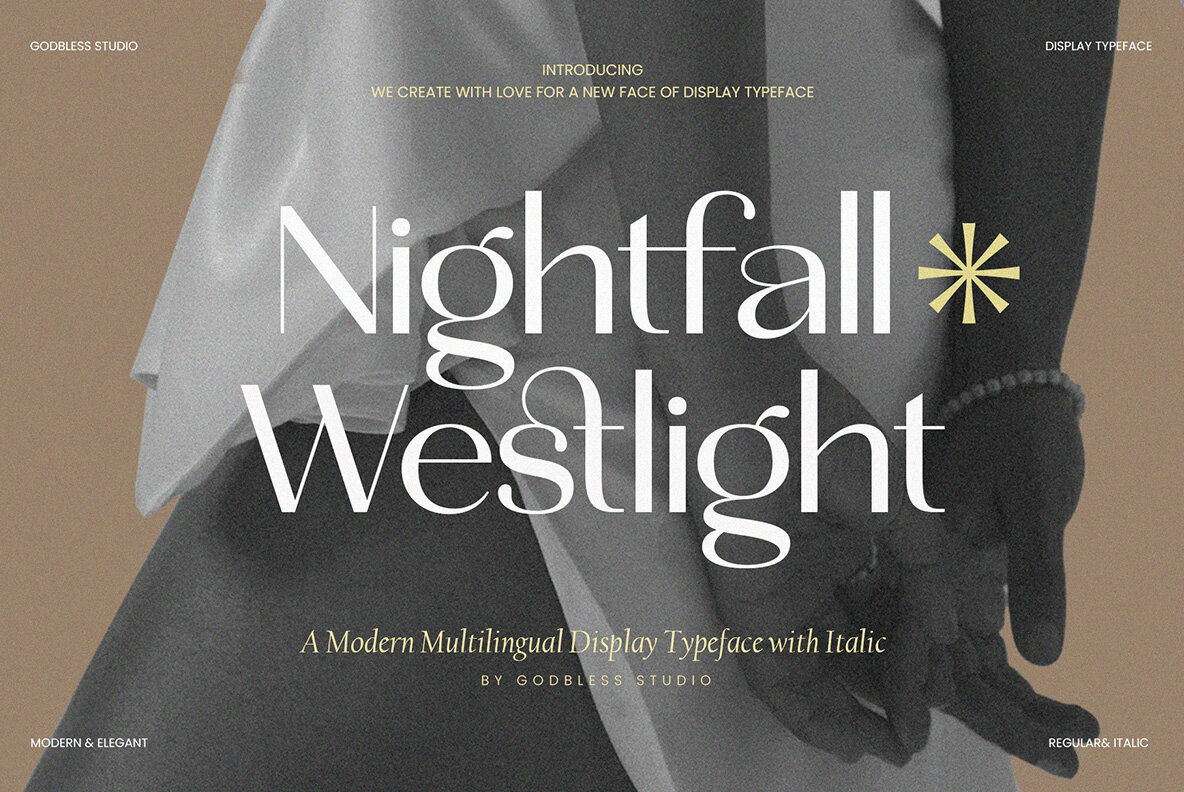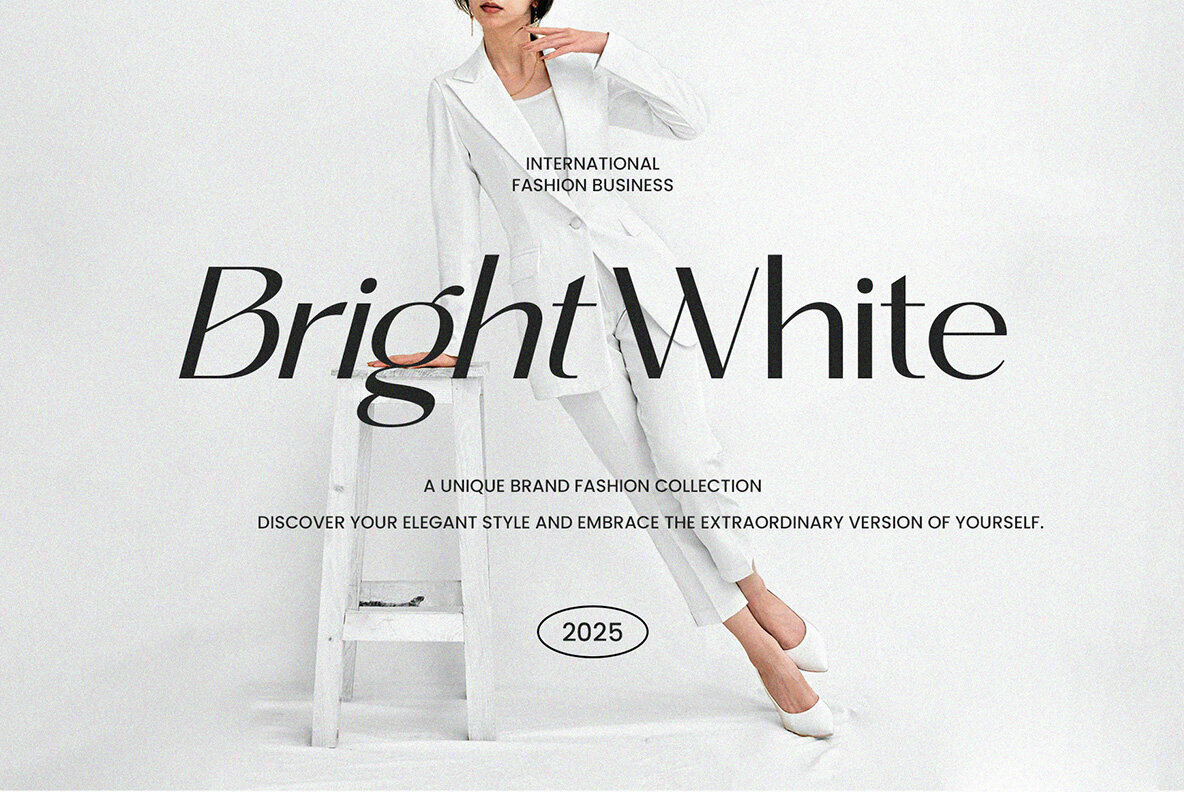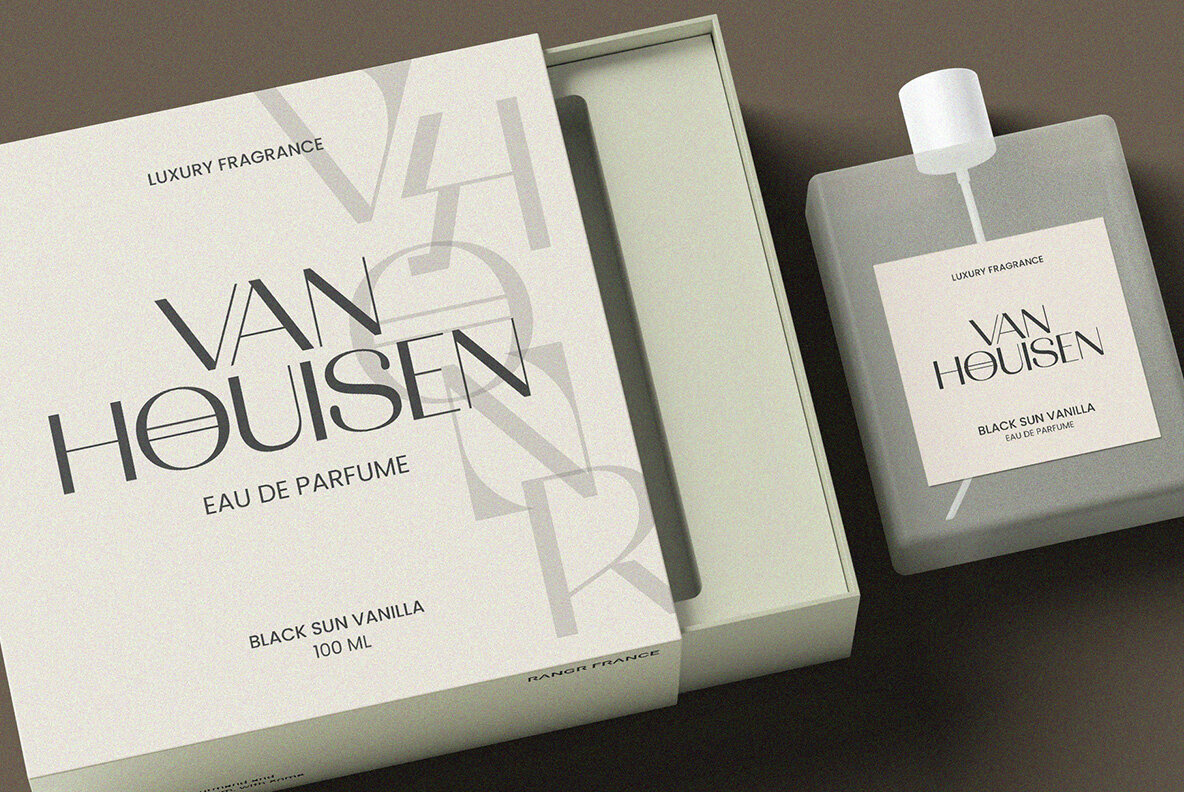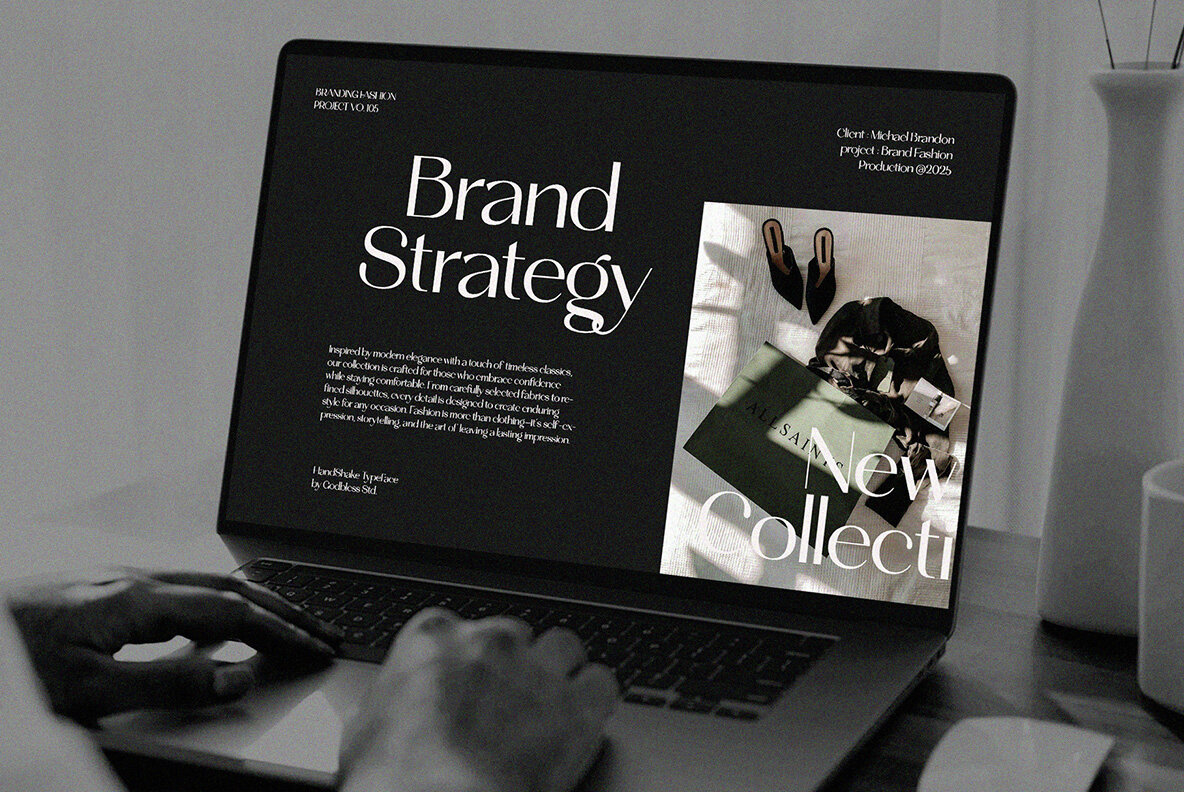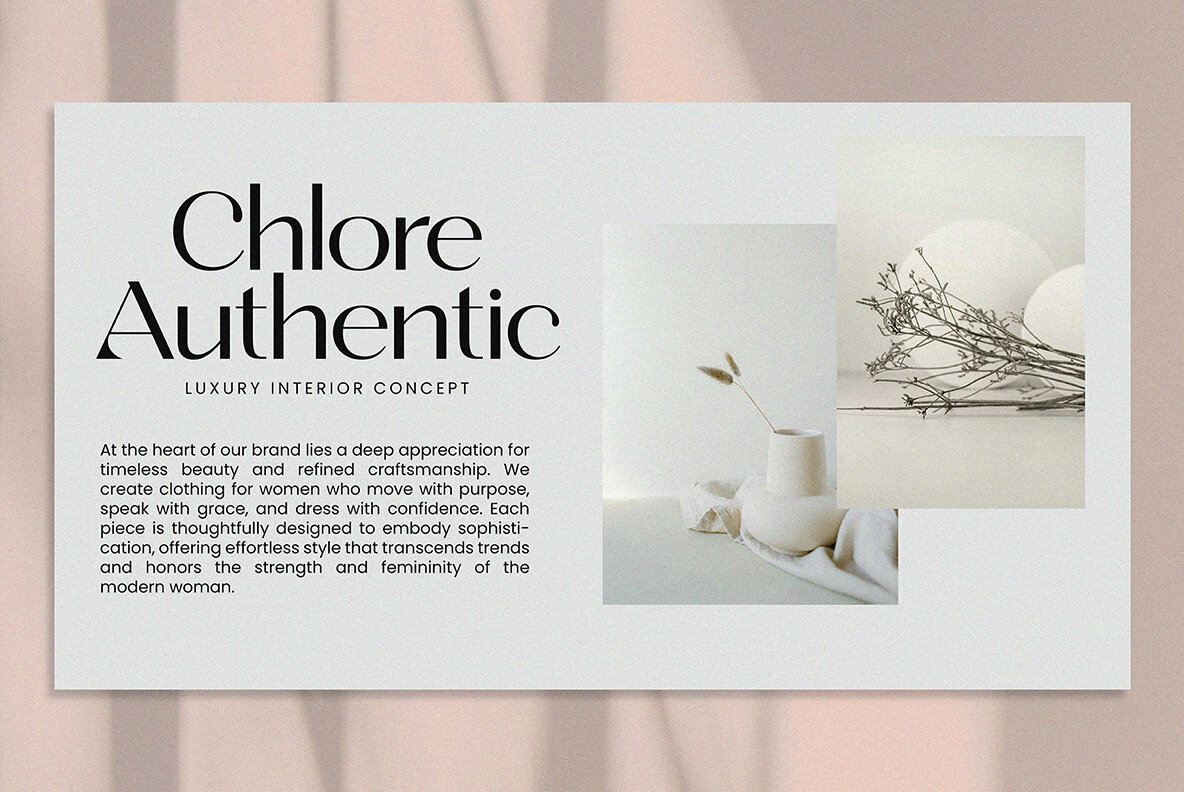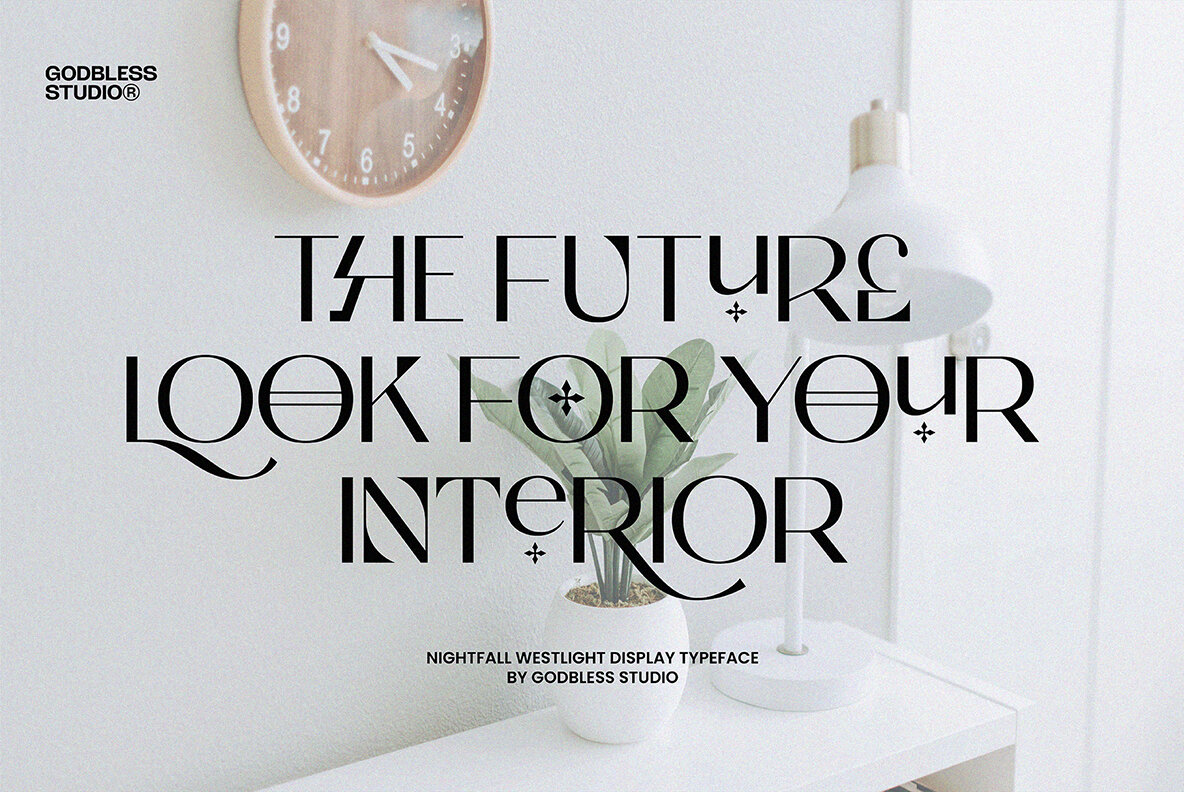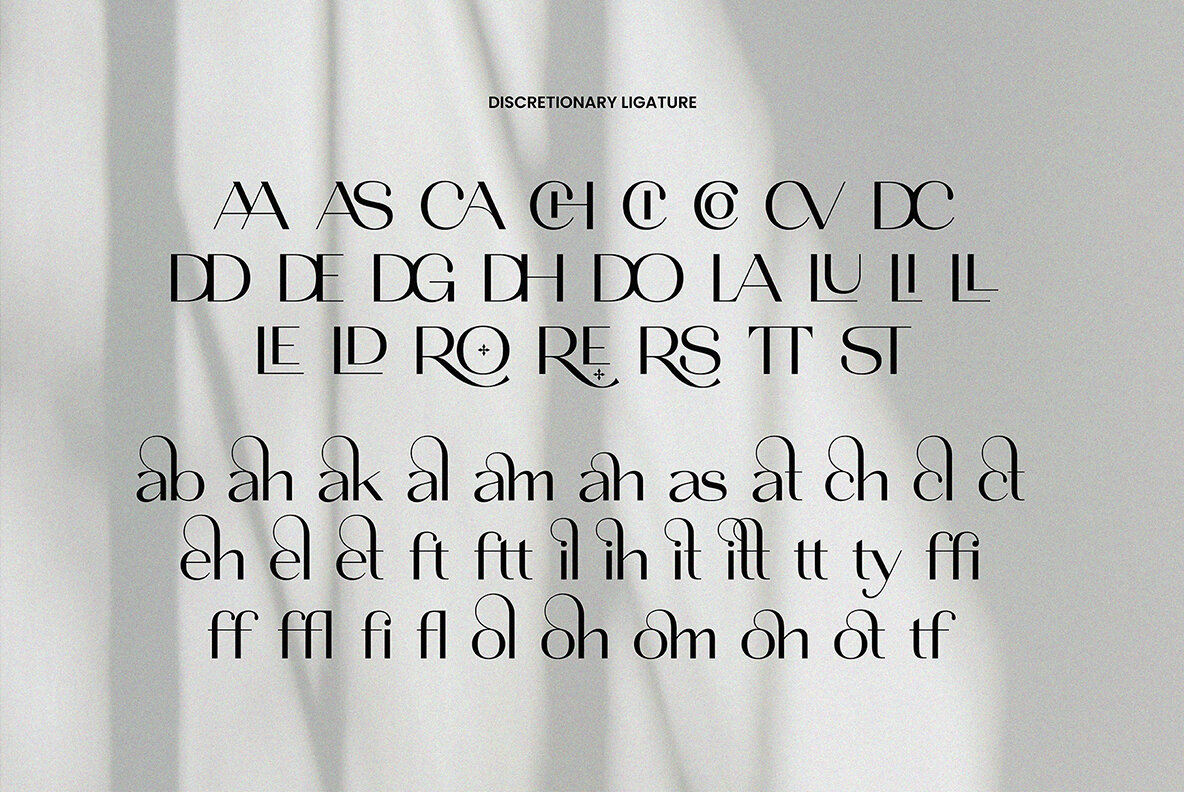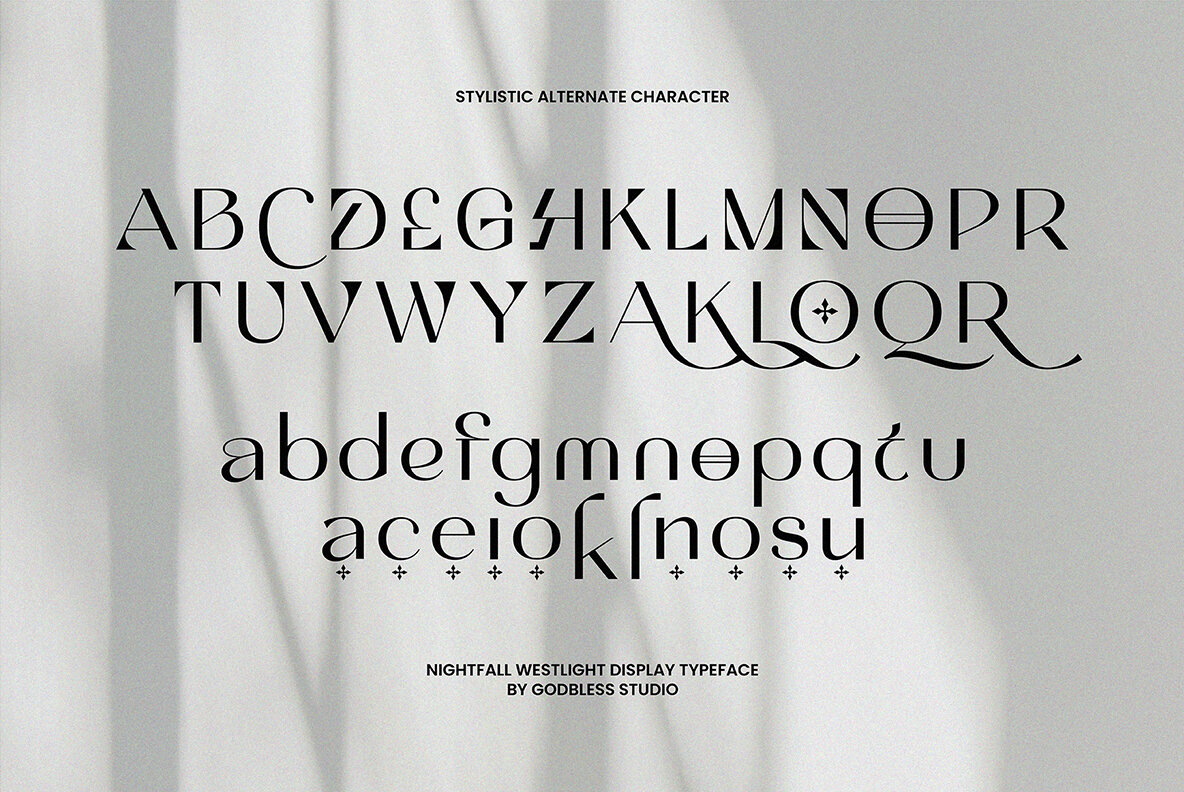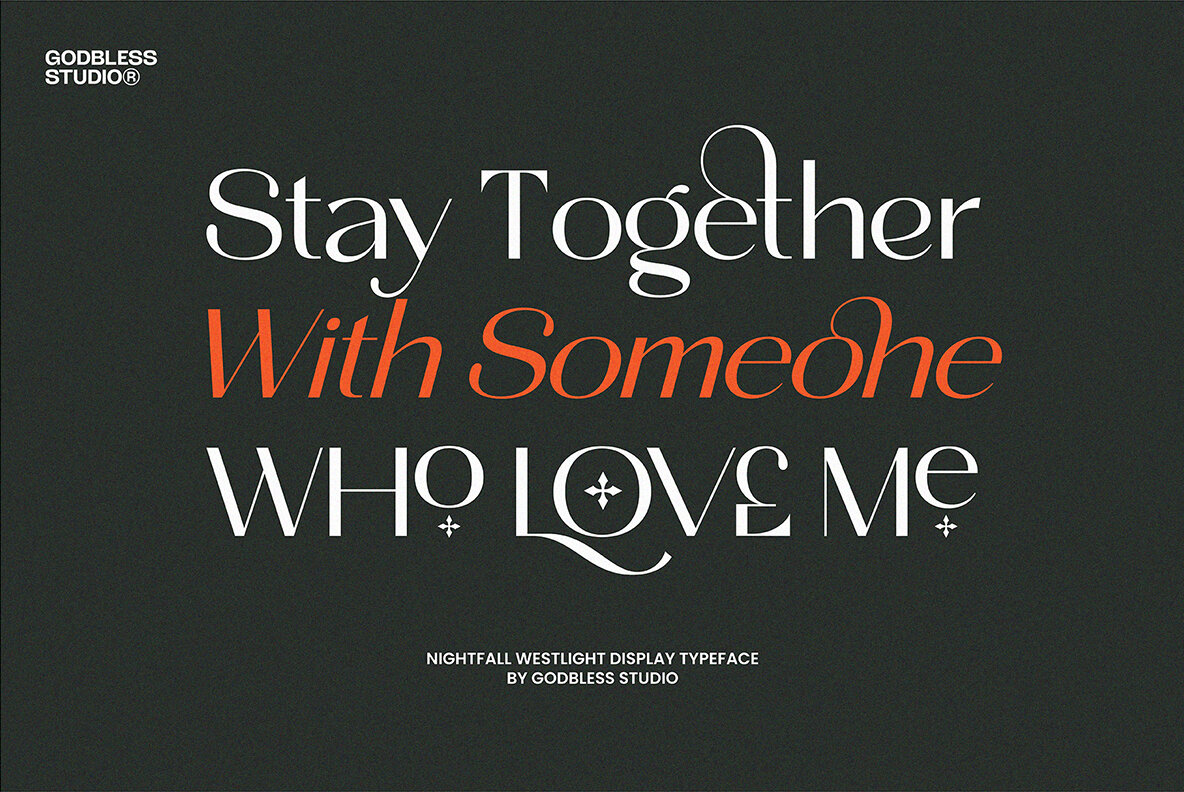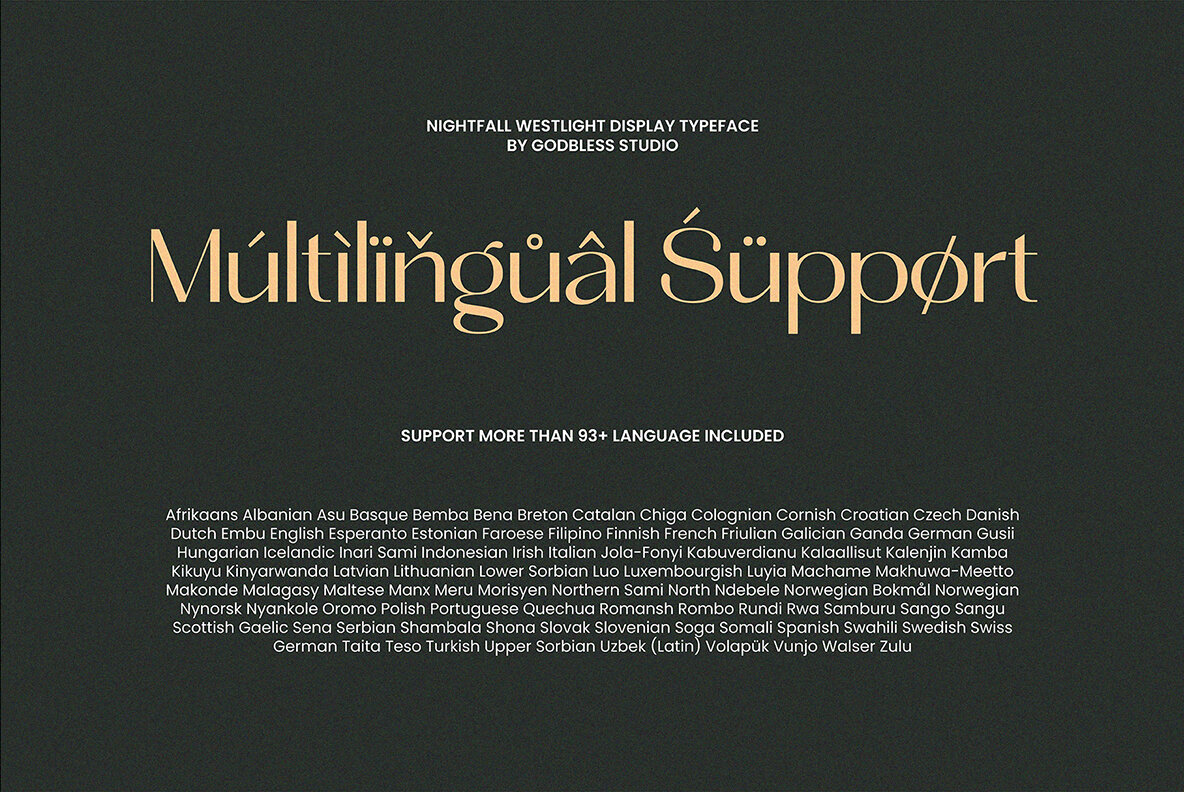
Nightfall Westlight Font
Nightfall Westlight Regular
Nightfall Westlight Italic
Nightfall Westlight is a modern sans display typeface that embodies a unique blend of boldness and elegance. It features clean lines and refined details, complemented by an italic style that adds a dynamic touch to your design projects. Specially crafted for standout headlines, branding, and attention-grabbing visuals, this typeface seamlessly merges clarity with character, providing a sophisticated edge to contemporary designs. Nightfall Westlight's versatility extends across a wide array of applications. It is perfect for logos, posters, packaging, apparel designs, social media graphics, editorial layouts, and digital projects. Available in both Regular and Italic styles, the font adapts effortlessly to different contexts and moods. An impressive set of alternates brings versatility, allowing creativity and unique flair in your typography. Additionally, with multilingual support encompassing over 90 languages, it ensures seamless integration across international projects. Embrace Nightfall Westlight as a dependable font that enhances your creative portfolio. It provides the sophistication and impact required for projects ranging from brand identity building to bold advertising campaigns. This typeface is designed to elevate any visual endeavor with its distinguished style.Nightfall Westlight: Sans Display Typeface with Italic